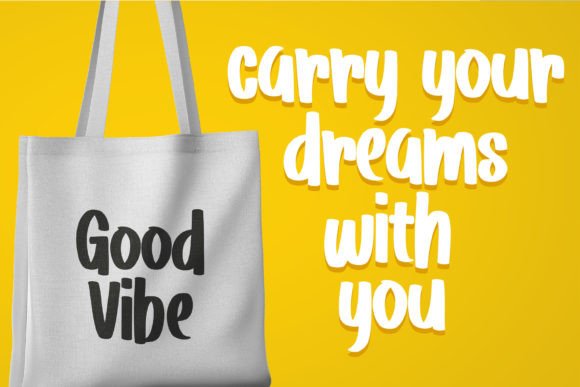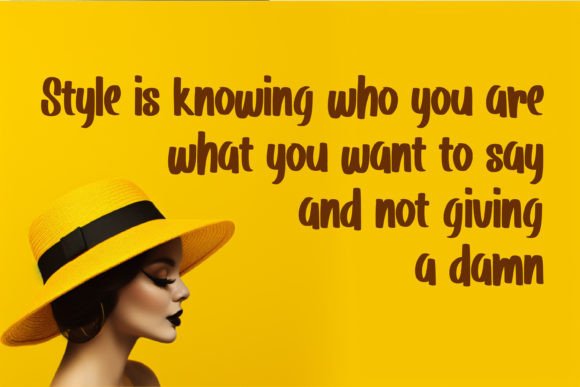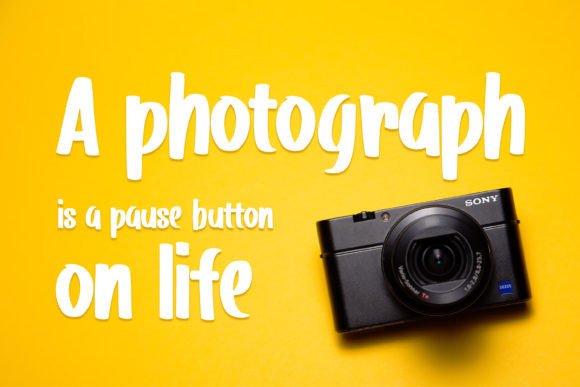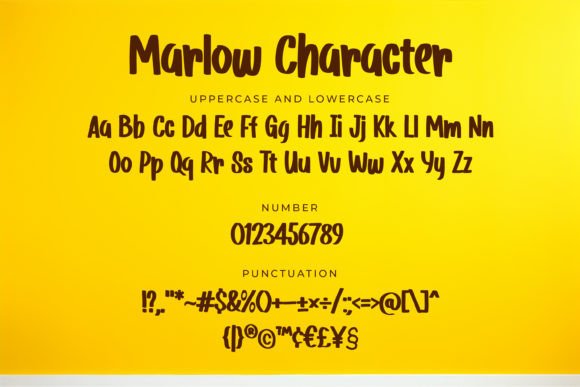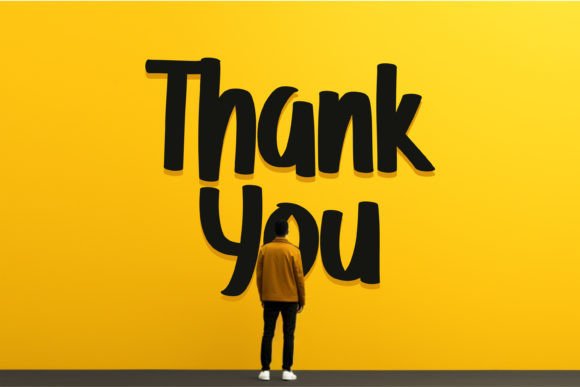
Introduction to Marlow Font
Have you ever found yourself scribbling down ideas in a notebook, only to be inspired by the messy yet charming handwriting? That’s exactly the feeling you get when working with the Marlow Font. This stunning handwritten font effortlessly blends elegance with a personal touch, making it perfect for designers who crave a high-quality design resource that adds warmth and authenticity to their projects.
Whether you’re working on a creative project that requires a touch of whimsy or a branding that demands sophistication, the Marlow Font is an excellent choice. Its beautifully crafted letters and charming flow make it an ideal solution for designers who want to elevate their designs without compromising on style. With its transparent background and free download option, you can experiment with the Marlow Font risk-free and discover its full potential.
Key Features of Marlow Font
- High-quality design resource ideal for creative projects, offering a professional touch.
- Comes in a transparent background, allowing for seamless integration into various design settings.
- Features a medium size, making it suitable for use in a variety of contexts, from headings to body text.
- Has a high resolution, guaranteeing crisp and clear display, even at larger sizes.
- Unique characteristics include its elegant and modern aesthetic, making it a popular choice among designers.
Honest Review: Marlow Font
I recently had the opportunity to work with the Marlow Font, and I must say it’s been a game-changer for my creative projects. This font is a high-quality design resource that’s perfect for anyone looking to add a touch of elegance to their work.
- ✨ High-quality design: The Marlow Font is incredibly detailed and well-crafted, making it perfect for a variety of creative projects.
- ✨ Transparent background: The font’s transparent background makes it easy to use with a variety of backgrounds and designs.
- ⚠️ Limited customization options: While the Marlow Font is a great starting point, it may not be suitable for designers who require a high degree of customization.
- ⚠️ Not ideal for large-scale projects: While the font is high-quality, it may not be the best choice for large-scale projects due to its relatively small file size.
Overall, I’m really impressed with the Marlow Font. It’s a great design resource that’s perfect for a variety of creative projects. While it may have a few limitations, I think it’s well worth checking out for designers of all levels.
Tips for Getting the Most Out of Marlow Font
Use the Marlow Font in conjunction with other high-quality design resources to create a visually appealing design. Experiment with different font sizes, colors, and styles to find the perfect combination for your creative project.
The Marlow Font is ideal for use in a variety of creative projects, including logo designs, typography-based art, and marketing materials. Its high-quality design and transparent background make it a versatile design resource for any project.